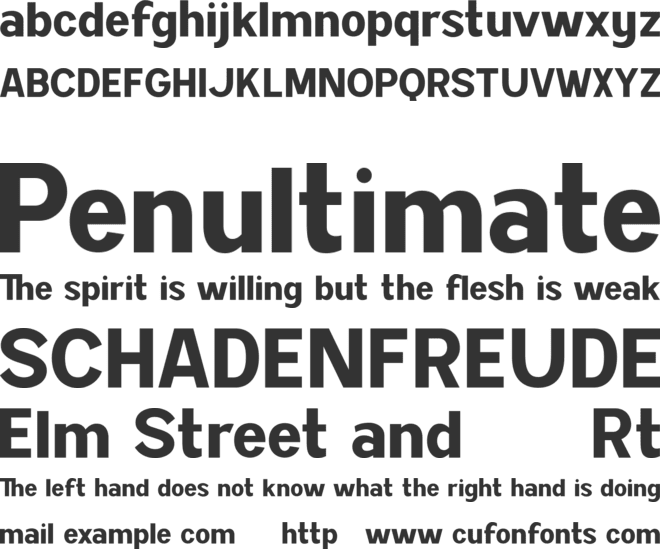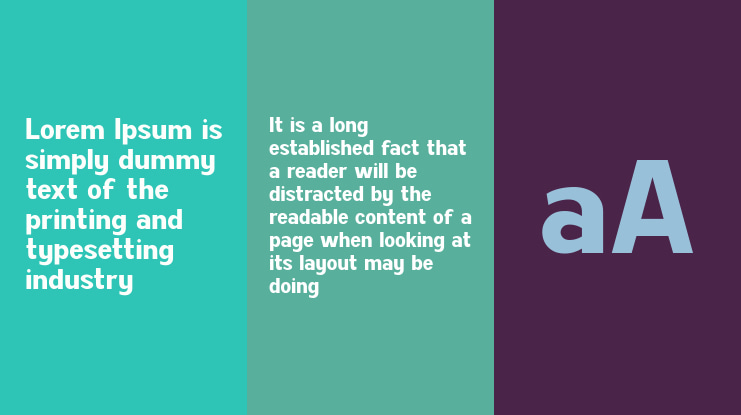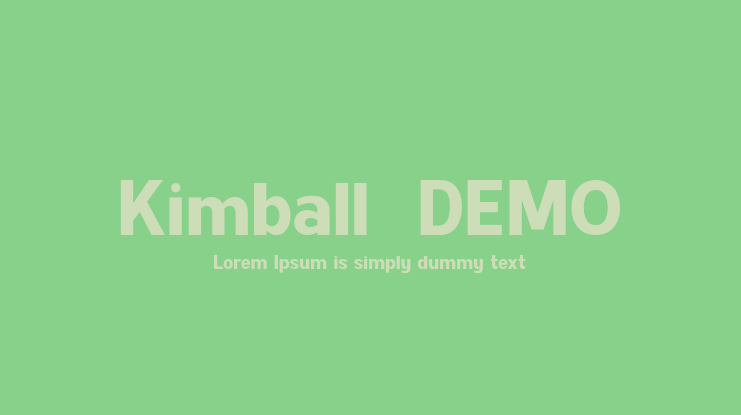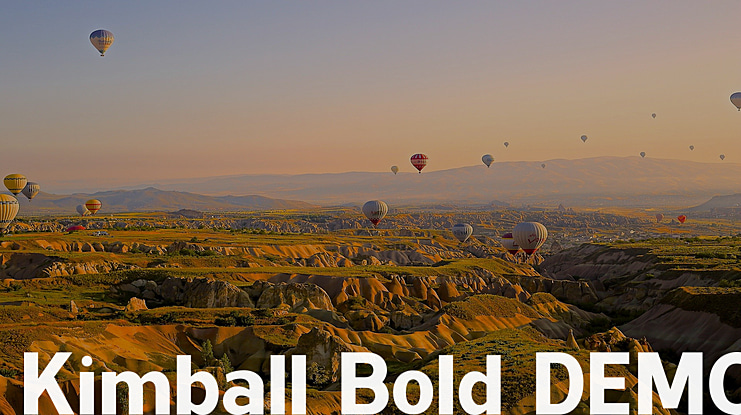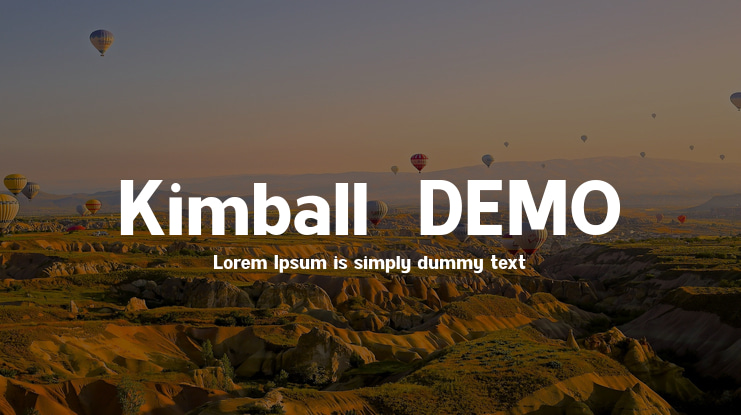
Kimball DEMO Font
Konstantine Studio
In terms of being remarkable from this chaos market. We try to bring something new to the table. Something fresh, new treatment from the usual, to the extra ordinary brand.
Without any further ado, please welcome, Kimball. An edgy and anti mainstream sans serif with 3 different weights : Thin, Regular, and Bold.
To stand out from the crown, being loud in every statement, Kimball is the perfect mate for that kinda needs. Perfectly fit for your casual and streetwear branding, poster event, website branding, social media content, everything will be sans serif eventually, and Kimball is the answer, my friend.